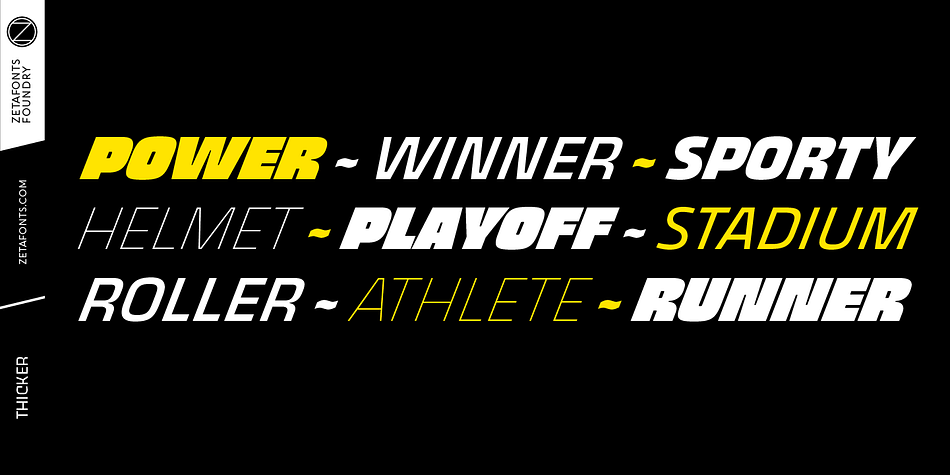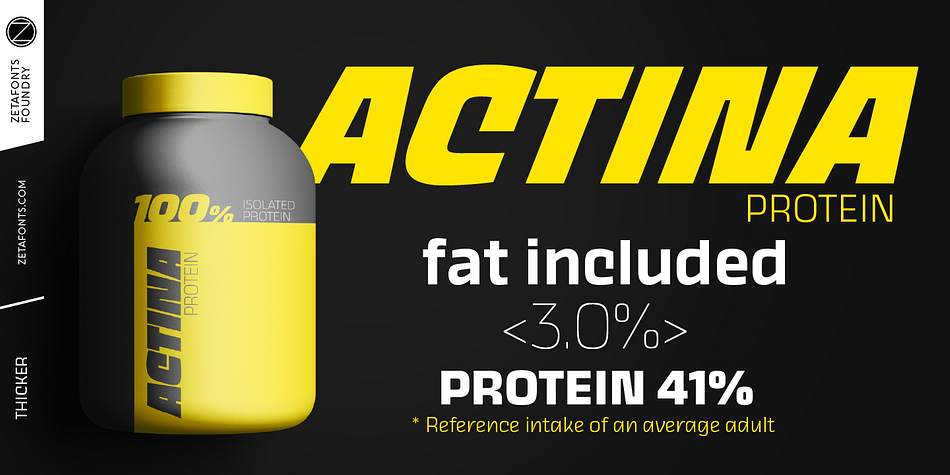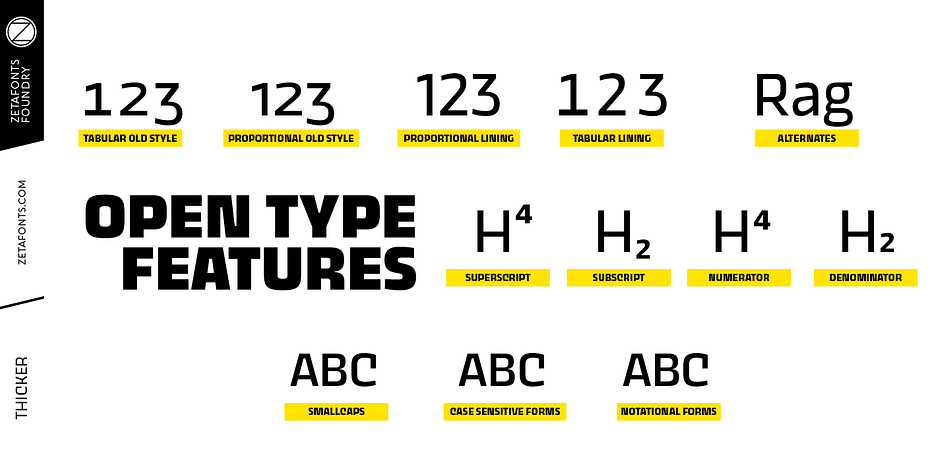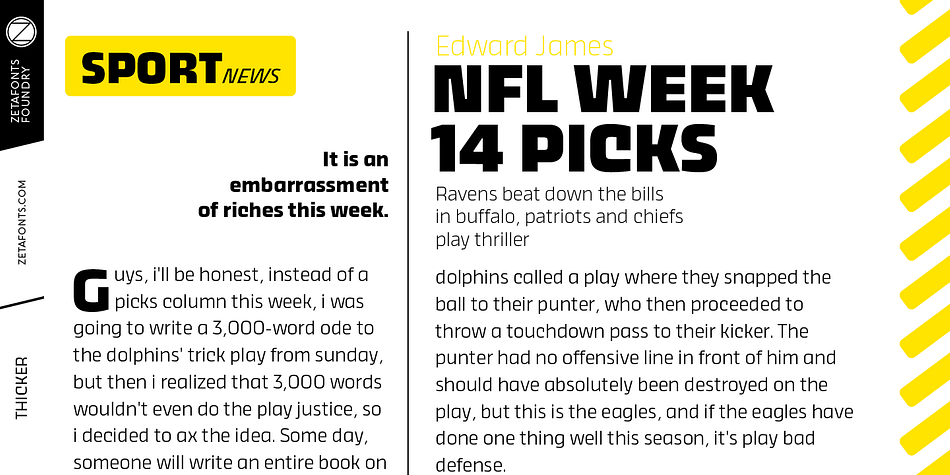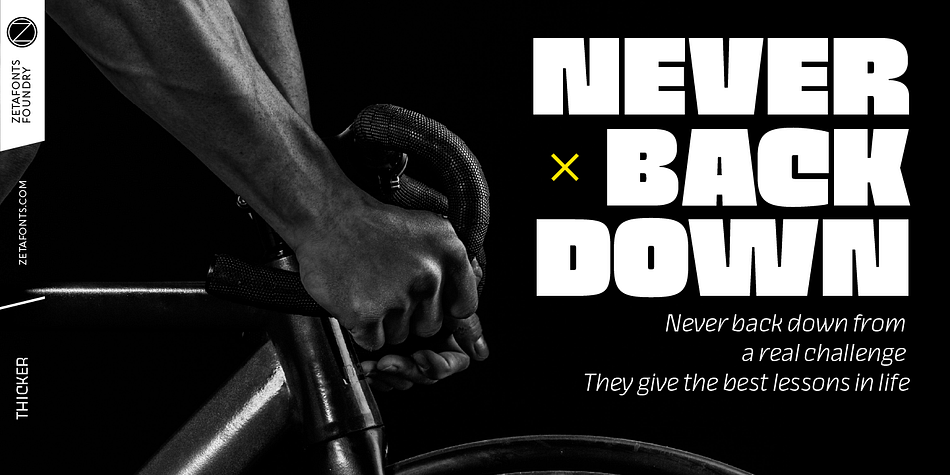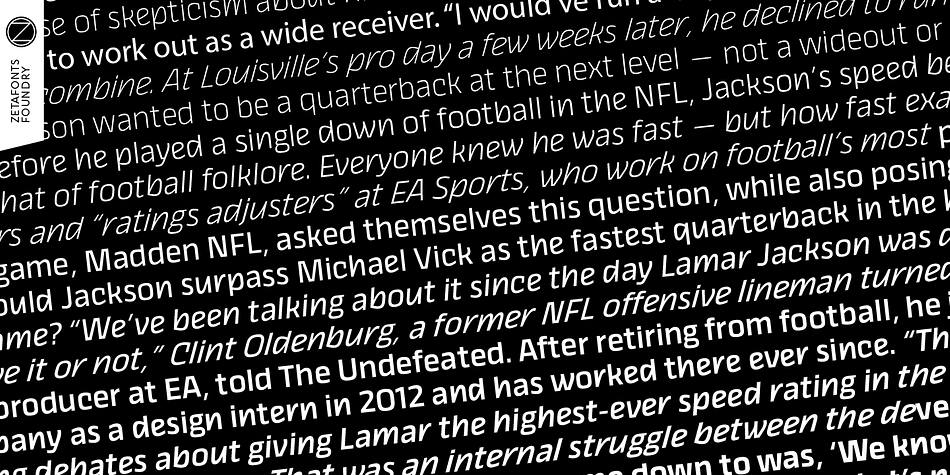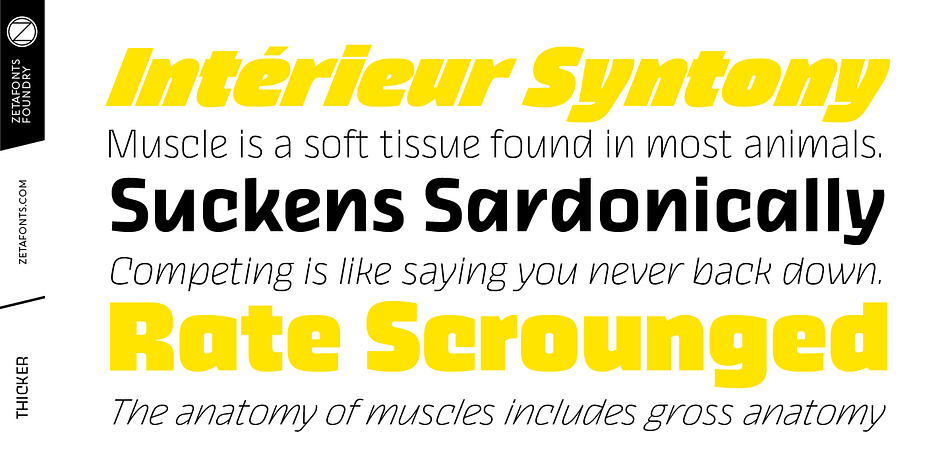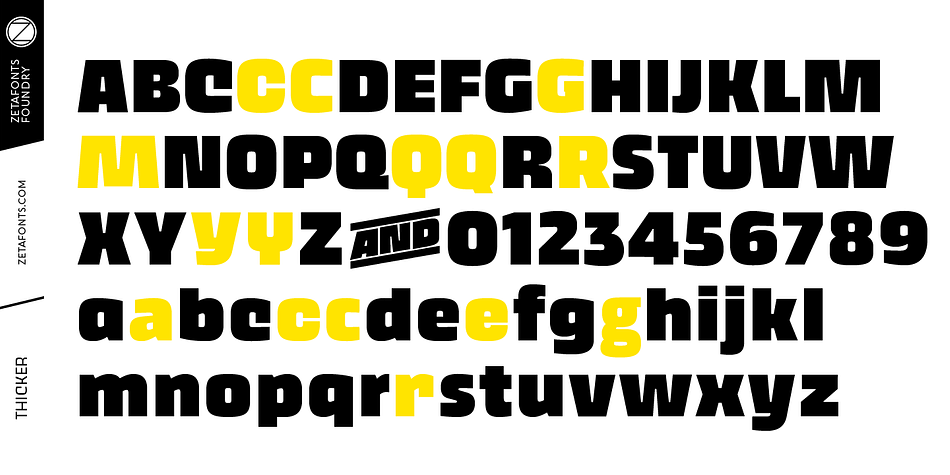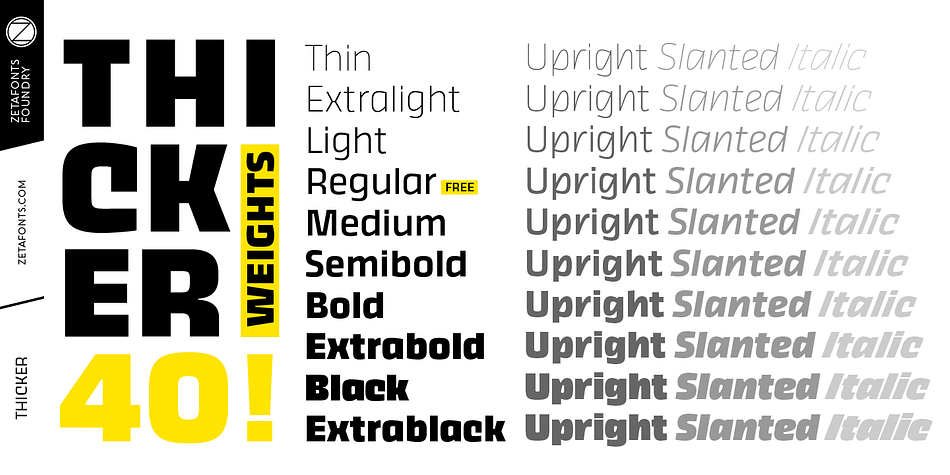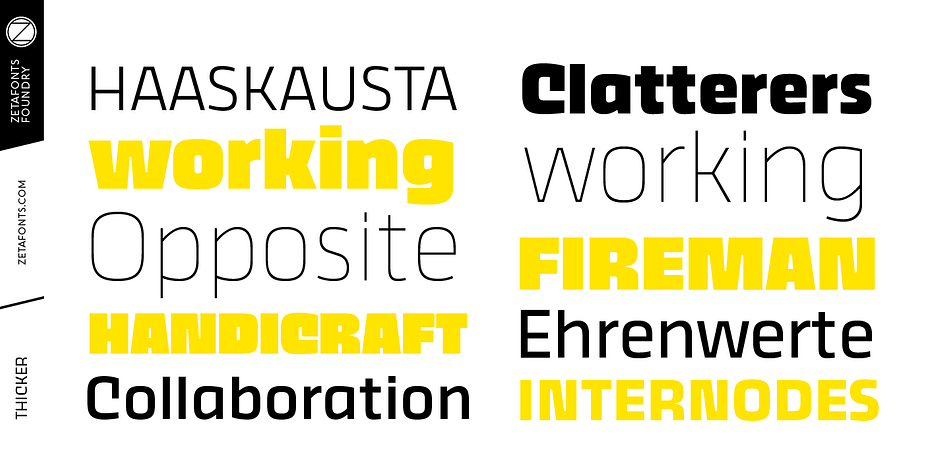
Designed by Francesco Canovaro and Andrea Tartarelli, Thicker is a sans serif font family. This typeface has forty-four styles and was published by Zetafonts.
Thicker is a type-family designed for Zetafonts by Francesco Canovaro with Andrea Tartarelli. A geometric sans typeface on steroids, it was first designed in the muscular extrablack weight with the aesthetics of high-power dynamic typefaces used in sports communication, and then developed in the lighter weights where the shapes show some vintage-inspired proportions and the slightly squared look that nods to Novarese famous Eurostile, eponymous with retro-futurism.
With these diverse influences the typeface allows for both impressive display use and effective logo design as well as more fine-tuned editorial use in body text - with a natural inclination for effective and powerful advertising. Sports typography usually uses italics to add dynamism and impact, and Thicker complies with this by offering a choice of three alternate italic forms with different slant, made even more customizable by the inclusion of variable font technology that allows fine tuning of the weight range as well as precise choice of typeface slant.
In each of the 44 weights of the typeface family (as well as in the all-in-one variable type solution) Thicker offers a extended charset of over 900 latin, cyrillic and greek glyphs, covering over two hundred languages and including useful Open Type features (Alternate forms, Positional Numerals, Small Caps and Case Sensitive Forms) for flawless typesetting.